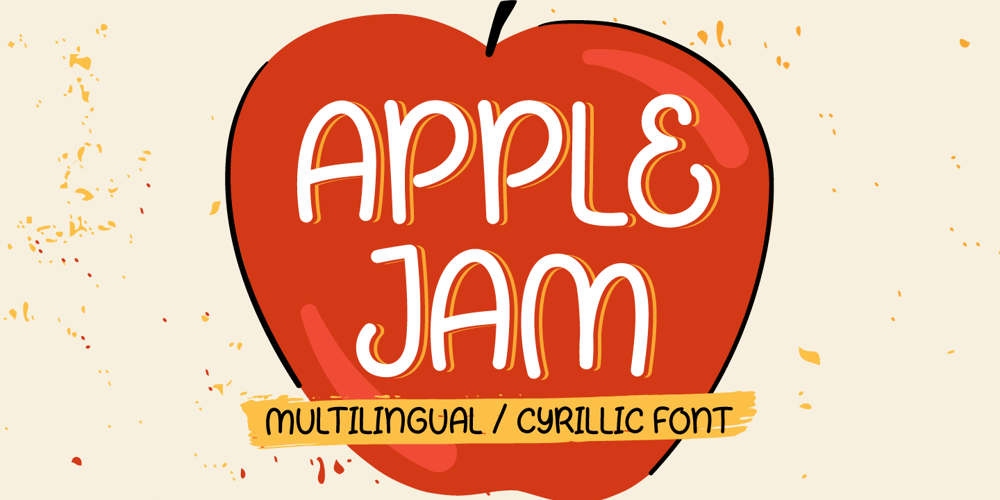
Apple Jam
Apple Jam font
Apple Jam Font Family was designed by Tatiana Kovaleva and published by Cmeree. Apple Jam contains 3 styles and family package options. Apple Jam is a sweet and friendly handwritten font. Whether you’re looking for fonts for Instagram or calligraphy scripts for DIY projects, this font will turn any creative idea into a true piece of art!Apple Jam comes with: 3 font styles: regular, bold, light uppercase & lowercase standard punctuation & numbers special accents & characters for most of the European languages cyrillic typeface